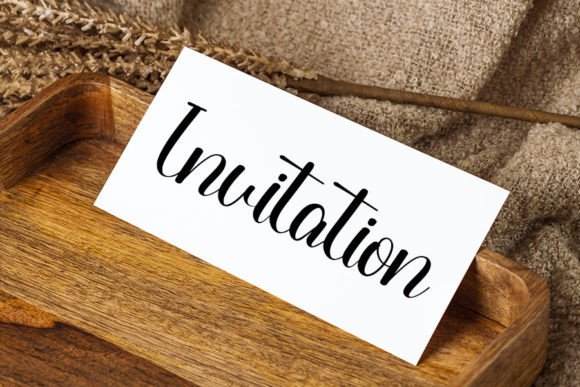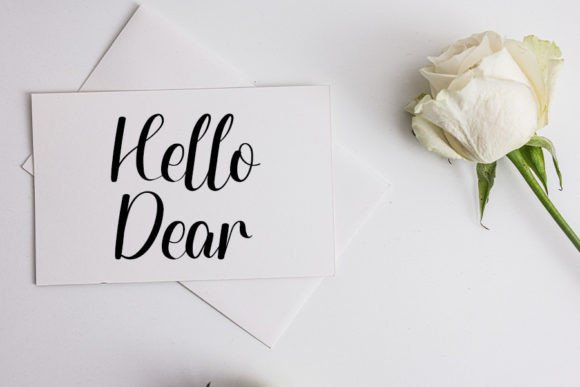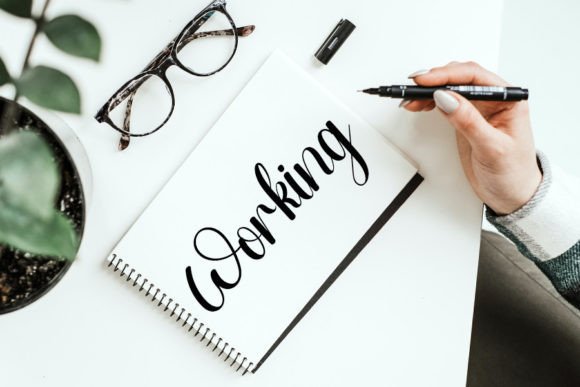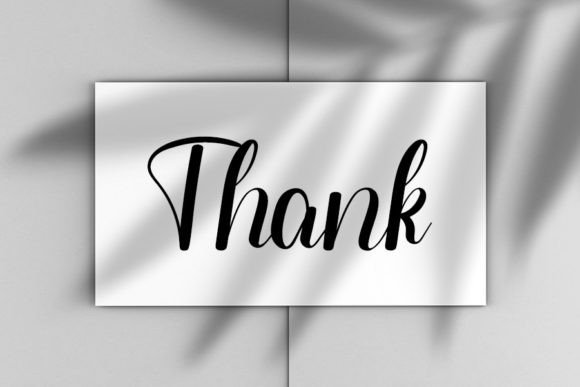
Stronger Handwritten Font – Trendy and Elegant Typeface
The Stronger Handwritten Font is a stylish script typeface designed to elevate your creative projects with elegance and personality. Inspired by classic calligraphy, it offers a modern atmosphere and impeccable form. Whether you are creating invitations, logos, or posters, this font ensures your work looks sophisticated and unique.
A Handwritten Script with Modern Energy
The Stronger Handwritten Font combines calligraphic grace with contemporary design. Its smooth strokes and balanced curves create a polished handwritten look. Because of its clarity and flow, it works across both digital and print projects, from social media graphics to product packaging.
Perfect for Invitations and Branding
One of the best uses of the Stronger Handwritten Font is in wedding invitations, thank-you cards, and event stationery. Its romantic handwritten style brings warmth and class to personal designs. At the same time, it adapts beautifully to logos, branding, and packaging, giving professional projects a creative edge.
The Stronger Handwritten Font is not limited to invitations or stationery. Its versatility makes it perfect for posters, labels, signage, apparel, and even magazine covers. Its stylish strokes ensure that it fits both formal and casual design contexts.
Why Designers Love Stronger Font
Designers appreciate the Stronger HandwrittenFont because it balances elegance with usability. Its flowing handwritten curves make it stand out, while its readability ensures it remains practical. This combination makes it a must-have for creatives who value both beauty and function.
In summary, the Stronger HandwrittenFont is a trendy, elegant, and versatile script typeface. With its calligraphic inspiration, smooth installation, and wide usability, it is perfect for invitations, branding, packaging, and digital projects. Don’t miss the chance to download Stronger HandwrittenFont and bring refined charm to your next design.